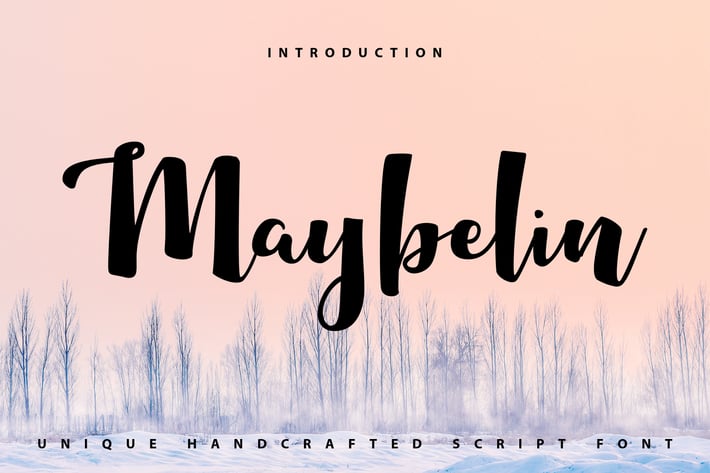
Maybelin | Unique Handcrafted Script Font
Maybelin | Unique Handcrafted Script Font with a calligraphy style, So beautiful on invitation like greeting cards, branding materials, business cards, quotes, posters, and more!